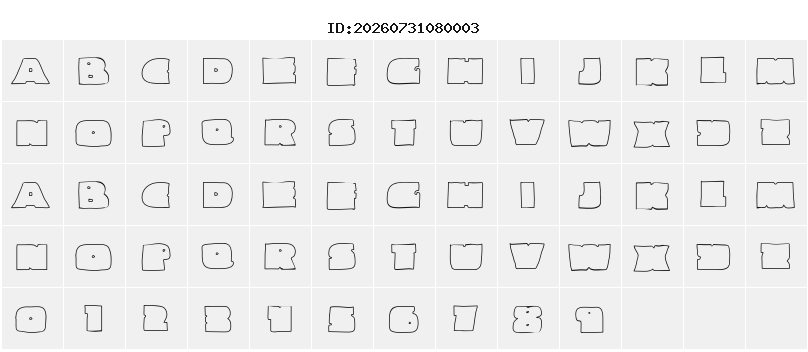
Linemaster Preview
• Font Name: Linemaster
• Full Font Name: Linemaster-Regular
• PostScript Name: Linemaster-Regular
• Designer: =^_^=
About Linemaster.otf
Linemaster.otf is a modern, elegant sans-serif font designed for ultimate readability and visual harmony. Perfect for branding, headlines, web design, and print materials.